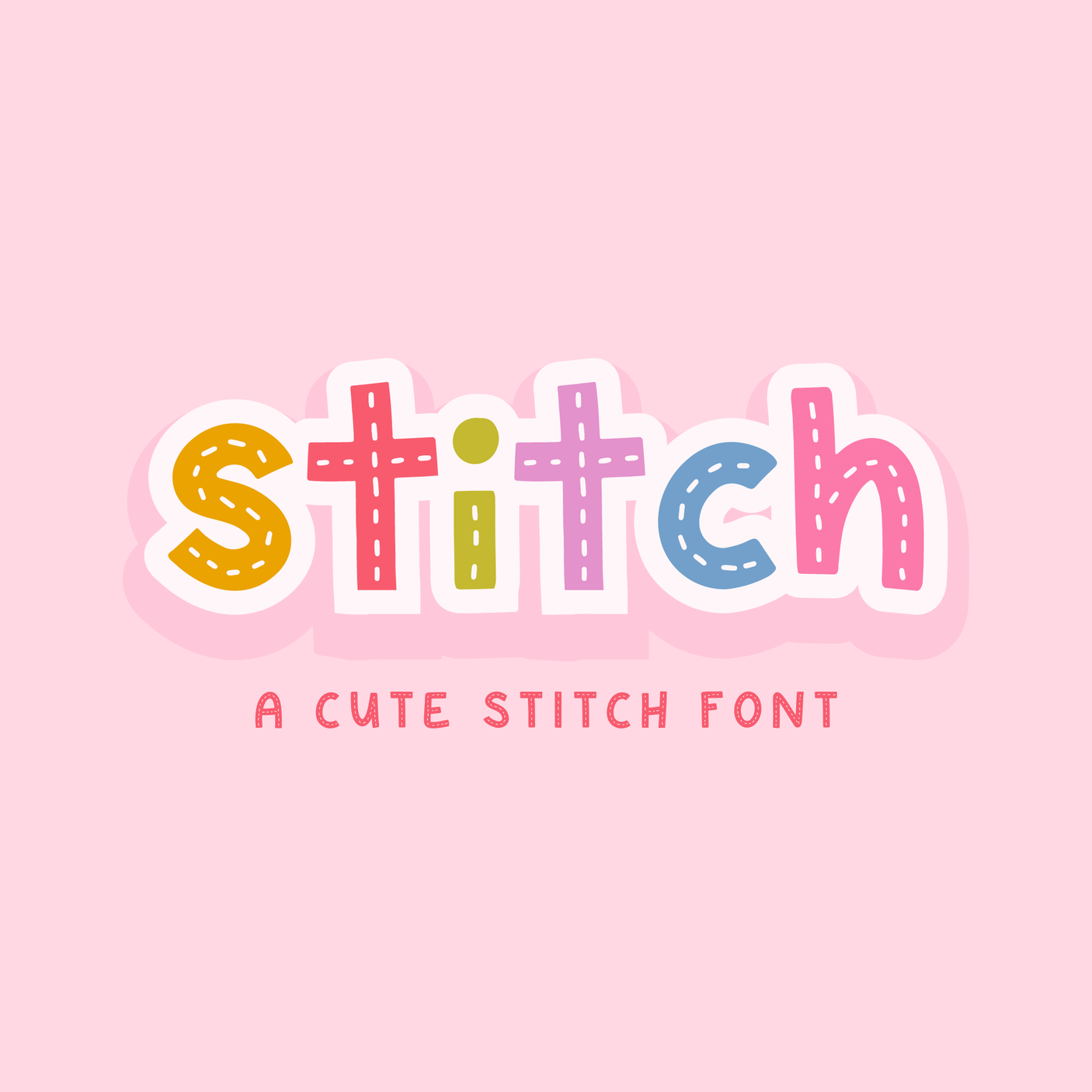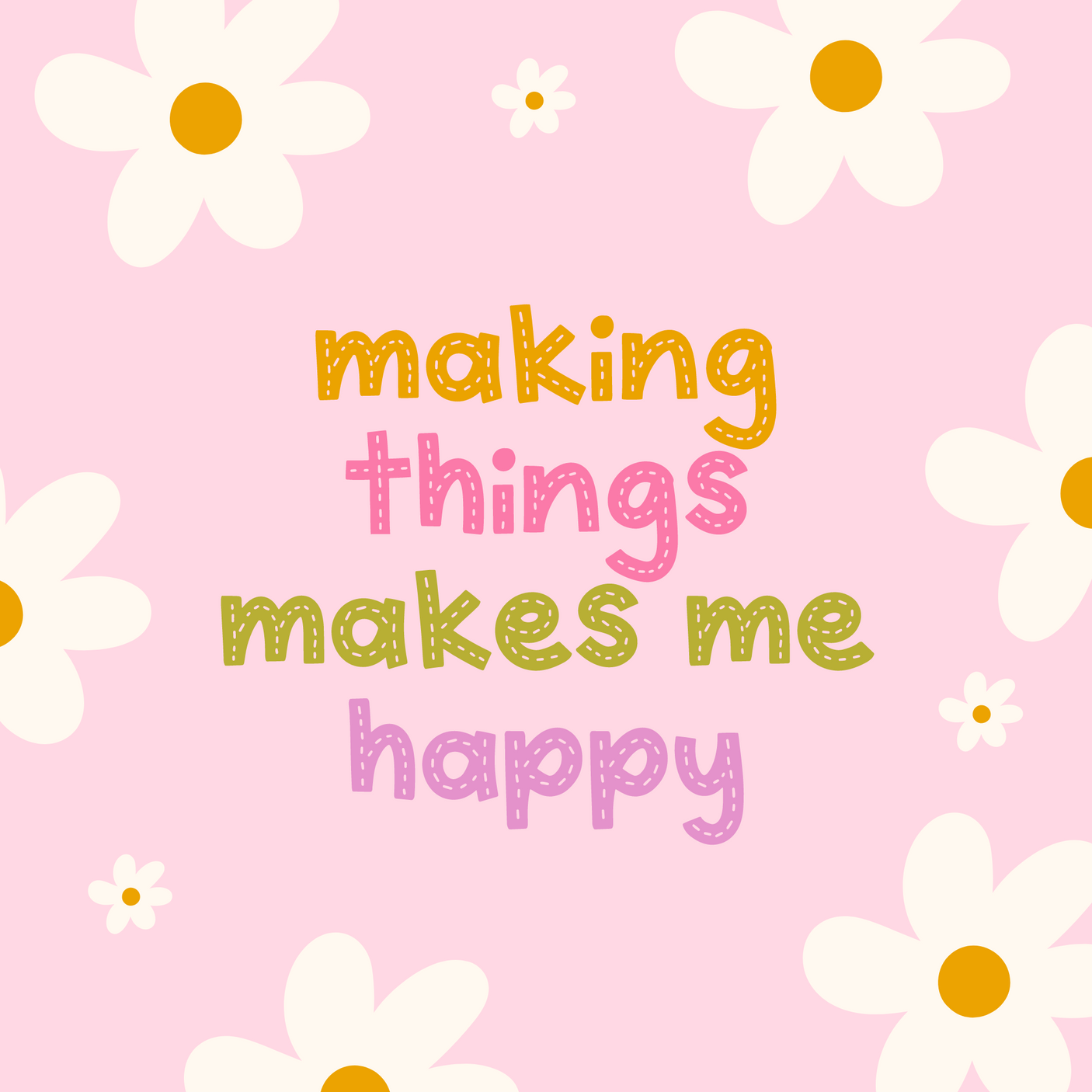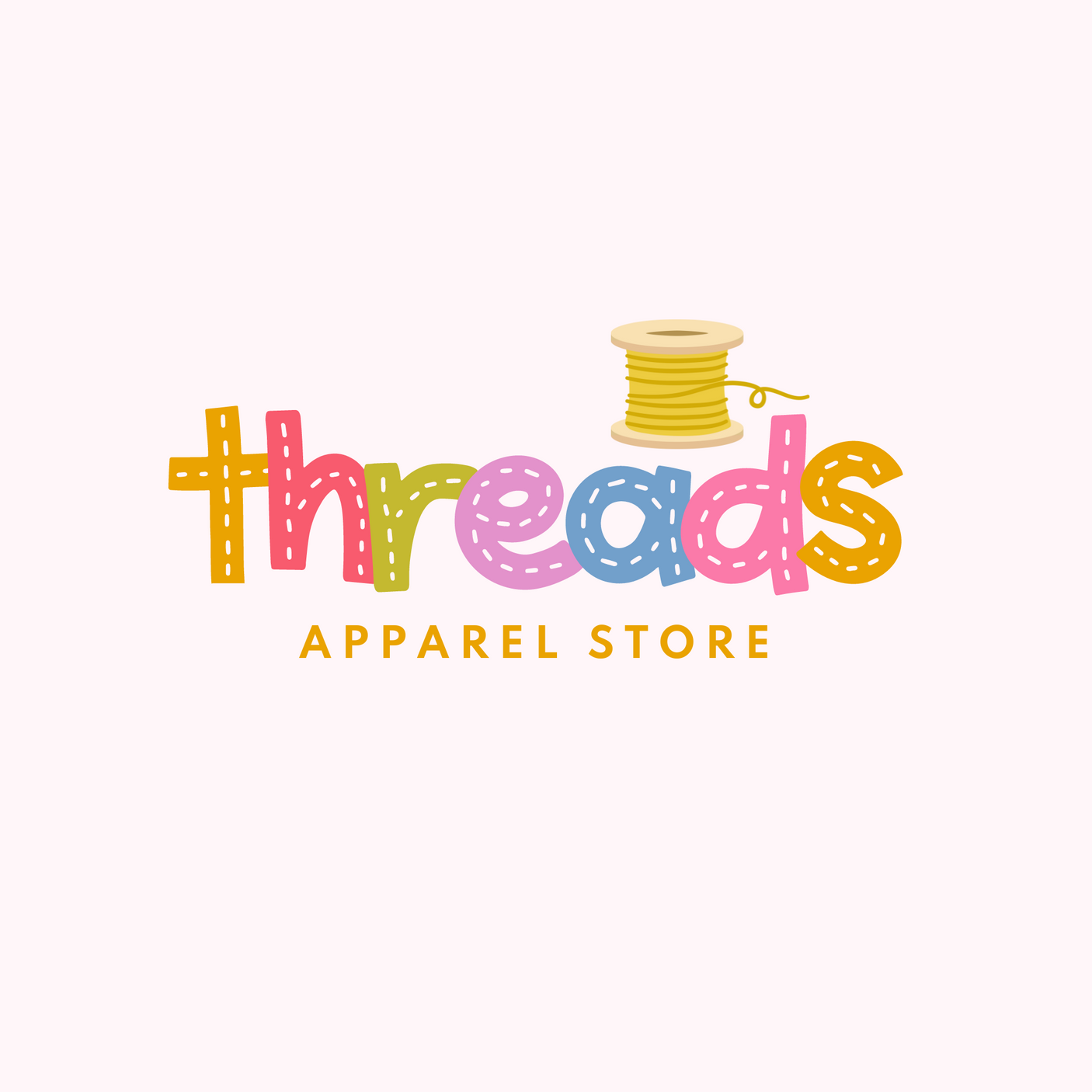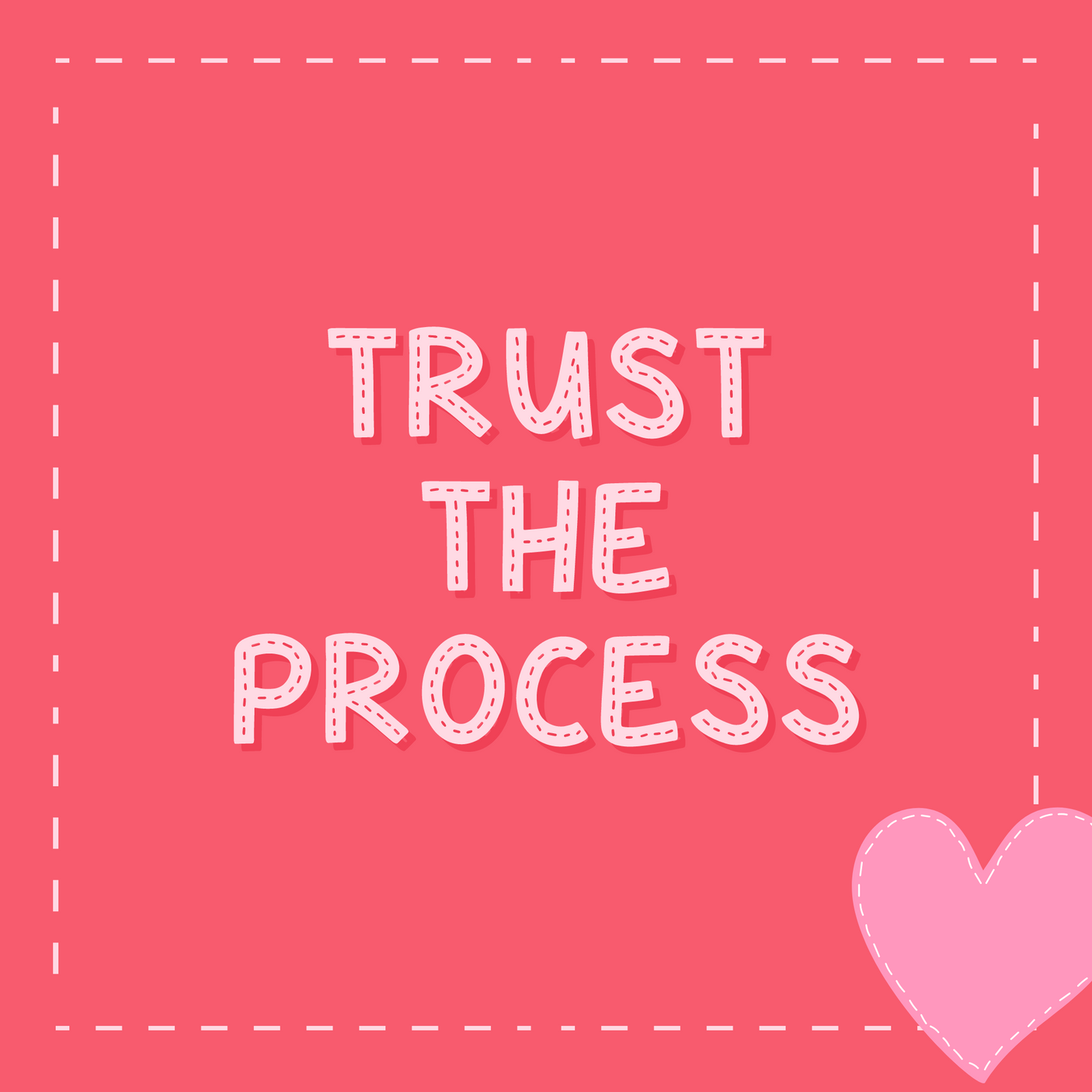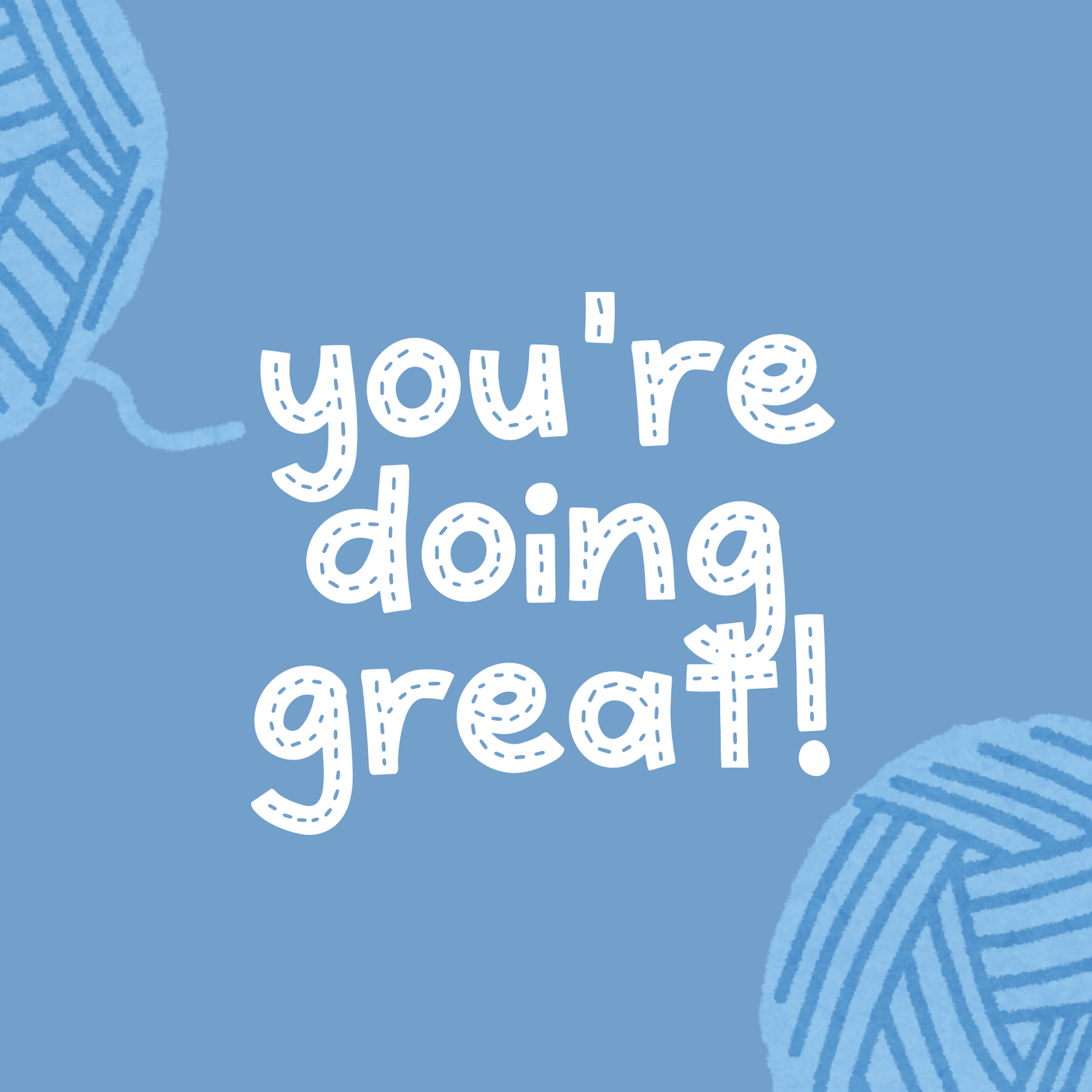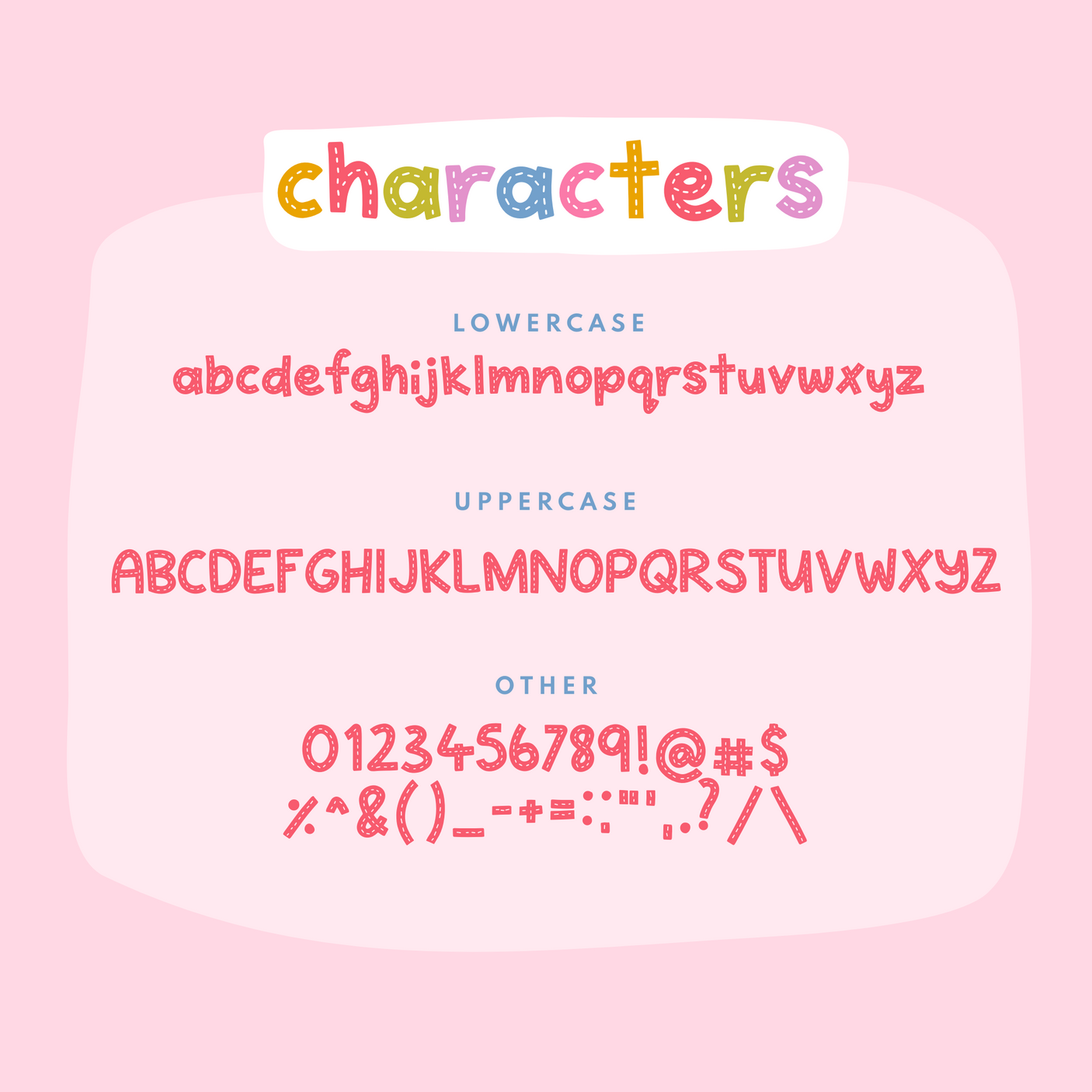
Stitch Font
Meet Stitch, the charming lettering font that brings a playful stitching pattern to your designs! Perfect for Procreate, iPad, Photoshop, and more, this delightful font adds a touch of whimsy to any project.
Upload Stitch to Canva and transform your text with adorable thread-like details, making your designs stand out with cuteness and creativity. Ideal for crafts, invitations, and social media graphics, Stitch is the perfect way to sew a little magic into your work!